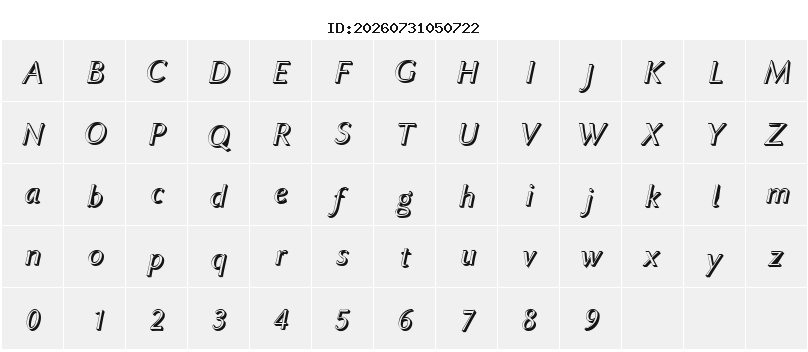
• Font Name: Linux Biolinum Shadow
• Designer: Philipp H. Poll
About Linux Biolinum Shadow.ttf
Linux Biolinum Shadow.ttf is a modern, elegant sans-serif font designed for ultimate readability and visual harmony. Perfect for branding, headlines, web design, and print materials.